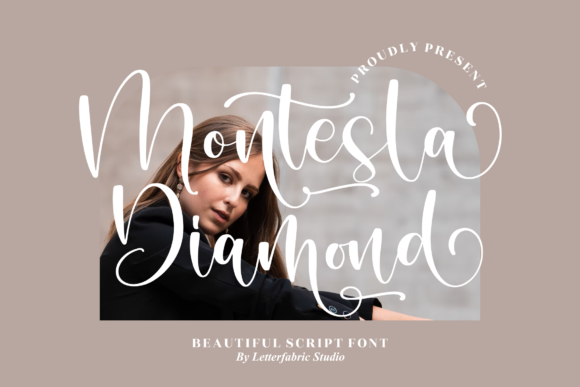
Prepare yourself to be spellbound by the Montesla Diamond Font, a mesmerizing creation from Letterfabric, designed to transport you to a realm of elegance and sophistication. This captivating script font possesses an inherent charm that will leave you enchanted from the very first glimpse. With its graceful curves and beautiful ligatures, Montesla Diamond holds the power to transform your designs into breathtaking works of art.
Slip into the world of Montesla Diamond and experience the boundless possibilities it offers. From crafting heartfelt greeting cards that convey your deepest emotions to designing eye-catching headlines that command attention, this versatile font molds to your creative vision seamlessly. Its graceful strokes and elegant swashes add a touch of personal flair to any project, leaving a lasting impression on your audience.
With Montesla Diamond at your fingertips, you'll discover a world of wonder and creativity. Picture this: crafting alluring social media posts that capture hearts and spark conversations, or designing captivating logos that exude professionalism and style. The possibilities are endless, limited only by your imagination. This font serves as your magic wand, transforming ordinary designs into mesmerizing masterpieces.
Step into the spotlight and unveil the beauty of your designs with Montesla Diamond. Let your creativity soar as you create stunning wedding invitations that evoke a sense of timeless elegance, or design enchanting posters that transport your audience to a realm of dreams. This font is your passport to a world of endless inspiration, where your imagination roams free and your designs blossom into works of art.
Montesla Diamond, a creation born from the fusion of art and technology, is PUA encoded, ensuring effortless access to a treasure trove of glyphs and ligatures. Unleash your creativity and explore the limitless possibilities that await you. With this font as your ally, you hold the power to captivate and enchant, leaving an indelible mark on the hearts and minds of your audience.